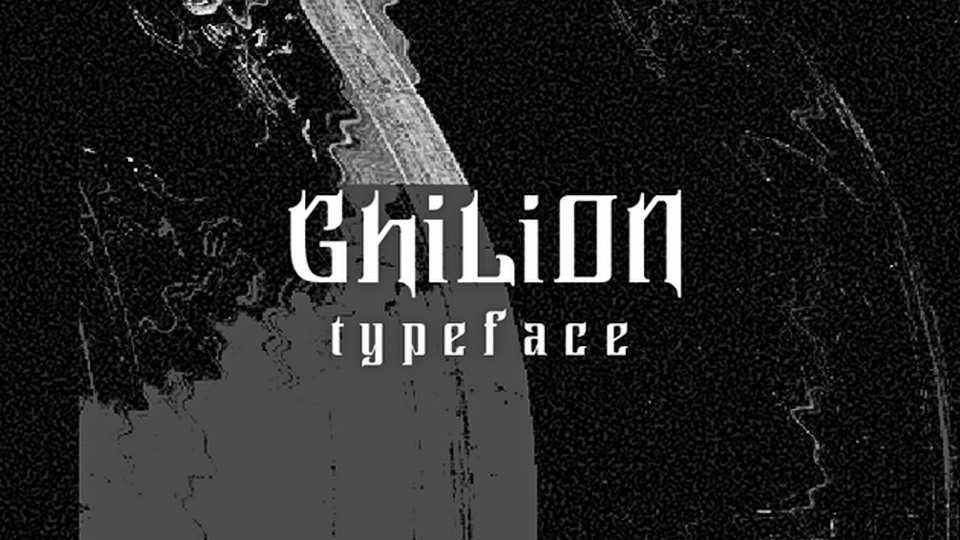
Download Ghilion Type font, a unique typeface inspired by a 20th century American document with Gothic influences. It is geometrized and modernized for today’s use. Ghilion Type font is great for titles.
Designer: Valentina Nitti